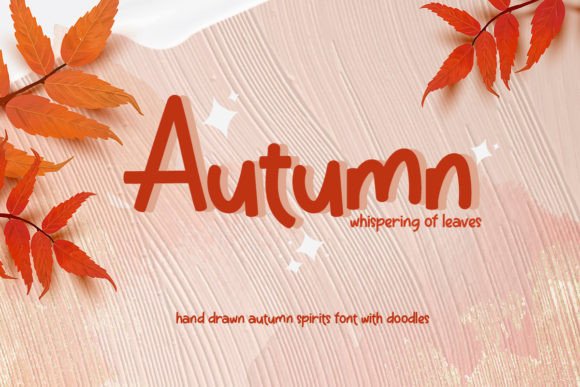
Introducing Autumn Font: Elevate Your Designs with a Touch of Seasonal Charm
As the seasons change and autumn leaves start to fall, designers and crafters are on the lookout for fonts that capture the essence of this cozy time of year. If you’re searching for a font that embodies the warmth and creativity of autumn, look no further than Autumn Font. This hand-drawn, autumn-inspired font is expertly designed to add a touch of seasonal magic to your creations, taking your designs to new heights.
The Perfect Blend of Whimsy and Sophistication
Autumn Font is a masterfully crafted, hand-drawn font that exudes a sense of whimsy and sophistication. Its unique, organic feel makes it perfect for a wide range of design applications, from greeting cards and social media graphics to quotes and display designs. Whether you’re a seasoned designer or a crafty DIY enthusiast, Autumn Font is sure to become your go-to choice for adding a touch of autumnal charm to your creations.
What Sets Autumn Font Apart?
So, what makes Autumn Font so special? Here are just a few features that set it apart from other fonts:
- Hand-drawn with love: Autumn Font is carefully crafted by hand, giving it a unique, organic feel that’s perfect for designers and crafters who want to add a personal touch to their work.
- Autumn-inspired spirit: From the warm, golden tones of changing leaves to the cozy, rustic feel of woodland landscapes, Autumn Font captures the essence of the season in a way that’s both subtle and striking.
- Versatile and adaptable: Whether you’re designing a greeting card, social media graphic, or display design, Autumn Font is the perfect choice for adding a touch of seasonal charm to your creation.
- Easy to use: With its clean, legible design, Autumn Font is easy to read and works beautifully in a wide range of design applications.
Endless Design Possibilities with Autumn Font
Autumn Font is incredibly versatile, making it perfect for a wide range of design applications. Here are just a few ideas to get you started:
- Greeting cards: Add a touch of seasonal charm to your greeting cards, invitations, and stationery with Autumn Font.
- Social media graphics: Use Autumn Font to create eye-catching social media graphics, quotes, and inspirational messages that are sure to engage your audience.
- Display designs: From posters and flyers to banners and signs, Autumn Font is the perfect choice for adding a touch of autumnal charm to your display designs.
- Branding and packaging: Use Autumn Font to add a touch of seasonal charm to your branding and packaging, creating a unique and memorable identity for your business.
Why Choose Autumn Font?
With so many fonts to choose from, why should you choose Autumn Font? Here are just a few reasons why designers and crafters love this amazing font:
- Unique and eye-catching: Autumn Font is a one-of-a-kind font that’s sure to grab attention and make your designs stand out.
- Easy to use: With its clean, legible design, Autumn Font is easy to read and works beautifully in a wide range of design applications.
- High-quality design: Autumn Font is expertly designed to deliver high-quality results, every time.
- Seasonal charm: Autumn Font captures the essence of the season in a way that’s both subtle and striking, making it perfect for designers and crafters who want to add a touch of autumnal charm to their creations.
Autumn Font is a hand-drawn, autumn-inspired font that’s expertly designed to add a touch of seasonal charm to your creations. With its unique, organic feel and versatile design, it’s perfect for a wide range of design applications, from greeting cards and social media graphics to quotes and display designs. Whether you’re a seasoned designer or a crafty DIY enthusiast, Autumn Font is sure to become your go-to choice for adding a touch of autumnal magic to your designs. So why wait? Download Autumn Font today and take your designs to new heights!